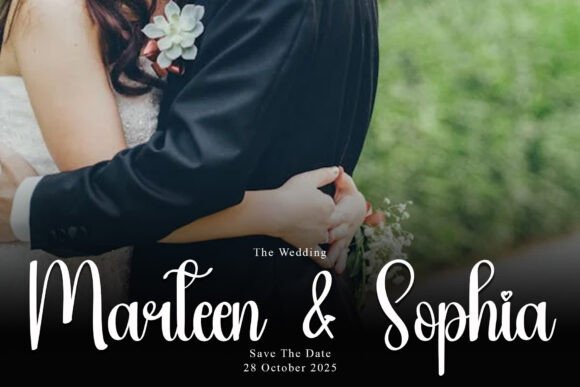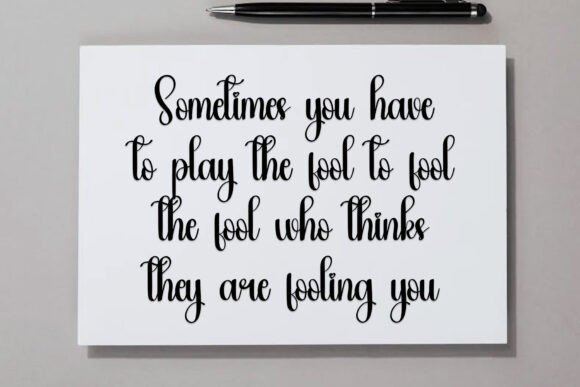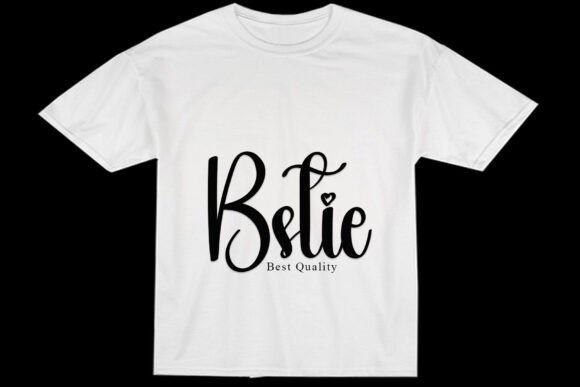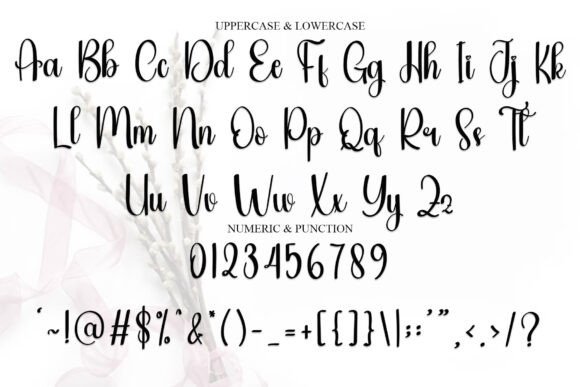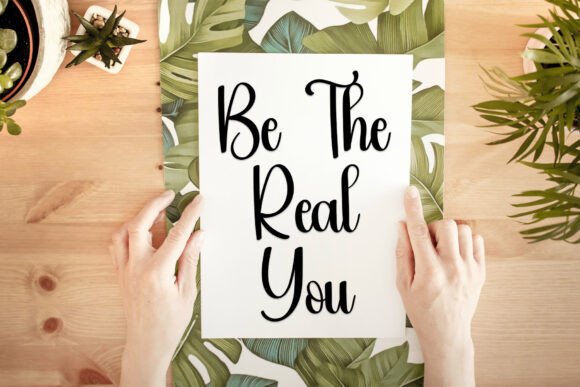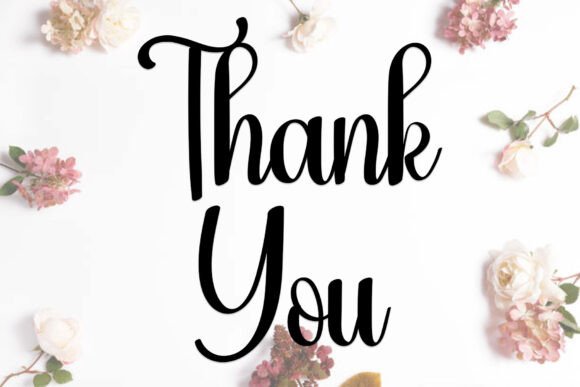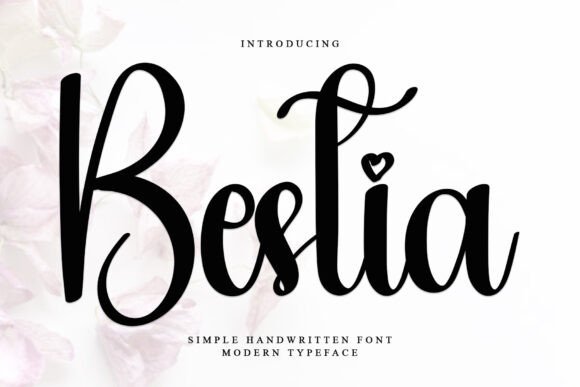
Discover the Charm of Bestia Font: Elevate Your Designs with a Touch of Fresh Elegance
In the world of typography, few fonts manage to capture the essence of freshness and casual elegance as effortlessly as Bestia. This charming handwritten font has been making waves among designers and crafters alike, and for good reason. Bestia’s fluid strokes and organic lines exude a laid-back vibe that is perfect for a wide range of design projects. Whether you’re working on branding, invitations, social media graphics, or any other creative endeavor, Bestia is sure to add a touch of warmth and personality that sets your work apart.
The Unique Characteristics of Bestia Font
So, what makes Bestia stand out from the crowd? Here are a few key characteristics that contribute to its unique charm:
- Fluid Strokes: Bestia’s fluid strokes give it a dynamic and organic feel that is reminiscent of handwriting. This makes it perfect for designs that require a personal touch.
- Organic Lines: The font’s organic lines add a sense of natural elegance to your designs. They also help to create a sense of movement and fluidity.
- Casual Elegance: Despite its casual nature, Bestia still manages to convey a sense of elegance and sophistication. This makes it suitable for a wide range of design projects, from formal invitations to social media graphics.
Uses for Bestia Font
Bestia’s versatility is one of its greatest strengths. Here are just a few examples of how you can use this charming font in your designs:
- Branding: Use Bestia to create a unique and memorable brand identity. Its casual elegance makes it perfect for lifestyle brands, fashion labels, and more.
- Invitations: Add a touch of warmth and personality to your invitations with Bestia. It’s perfect for weddings, birthday parties, and other special occasions.
- Social Media Graphics: Bestia is also great for social media graphics, such as Instagram posts, Facebook updates, and more. Its fluid strokes and organic lines make it perfect for creating eye-catching and engaging content.
Tips for Using Bestia Font Effectively
Here are a few tips for using Bestia effectively in your designs:
- Pair it with Other Fonts: Bestia pairs well with a variety of other fonts, including sans-serif fonts, and even script fonts. Experiment with different pairings to find the one that works best for your design.
- Use it in Moderation: While Bestia is a beautiful font, it’s best used in moderation. Use it as a headline font or for key text elements, and pair it with a more neutral font for body text.
- Experiment with Colors: Bestia looks great in a variety of colors, from bold and bright to soft and pastel. Experiment with different colors to find the one that works best for your design.
In conclusion, Bestia font is a charming and versatile font that is perfect for designers and crafters looking to add a touch of freshness and casual elegance to their work. Its fluid strokes, organic lines, and casual elegance make it suitable for a wide range of design projects, from branding and invitations to social media graphics and more. By following the tips outlined above, you can use Bestia to create beautiful and engaging designs that are sure to impress.